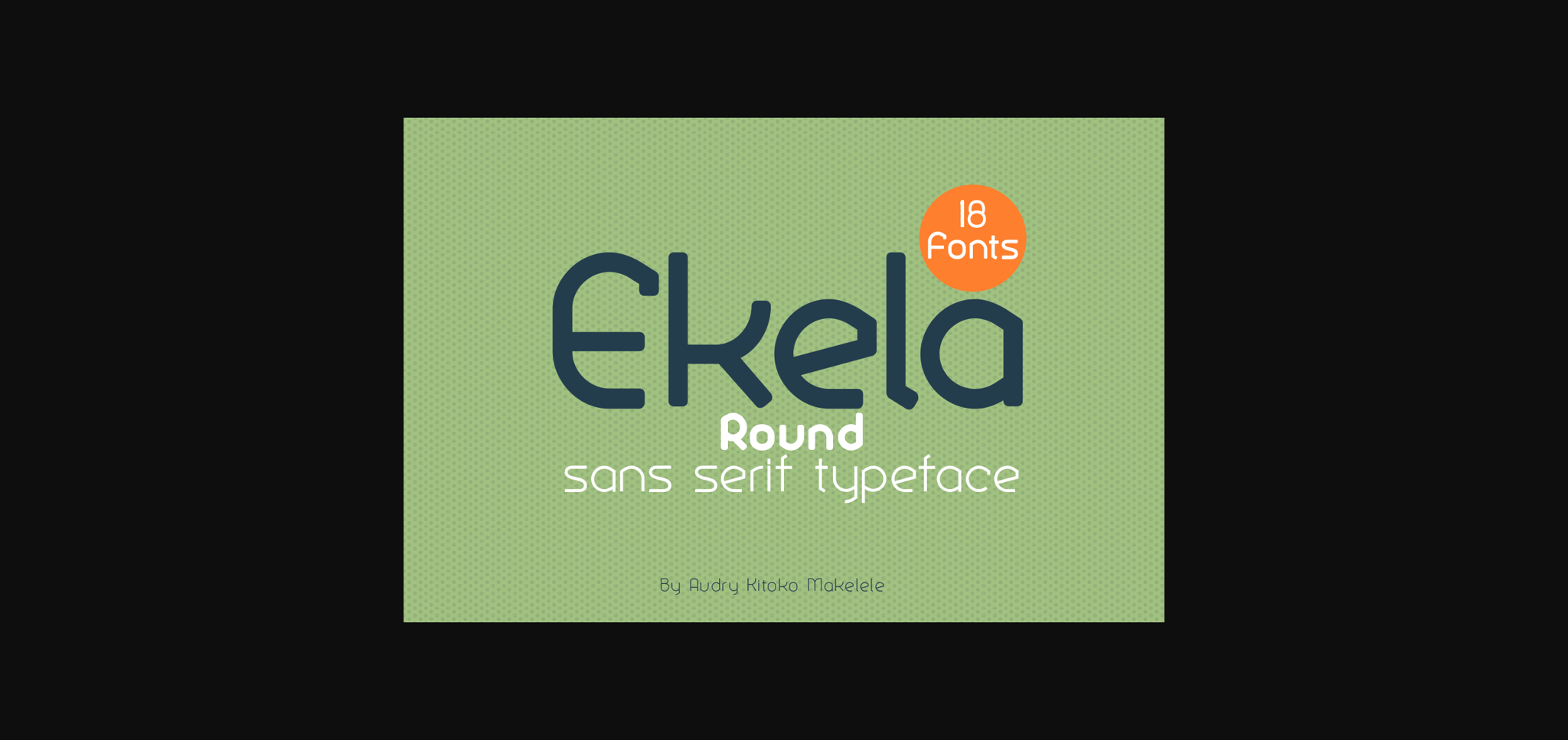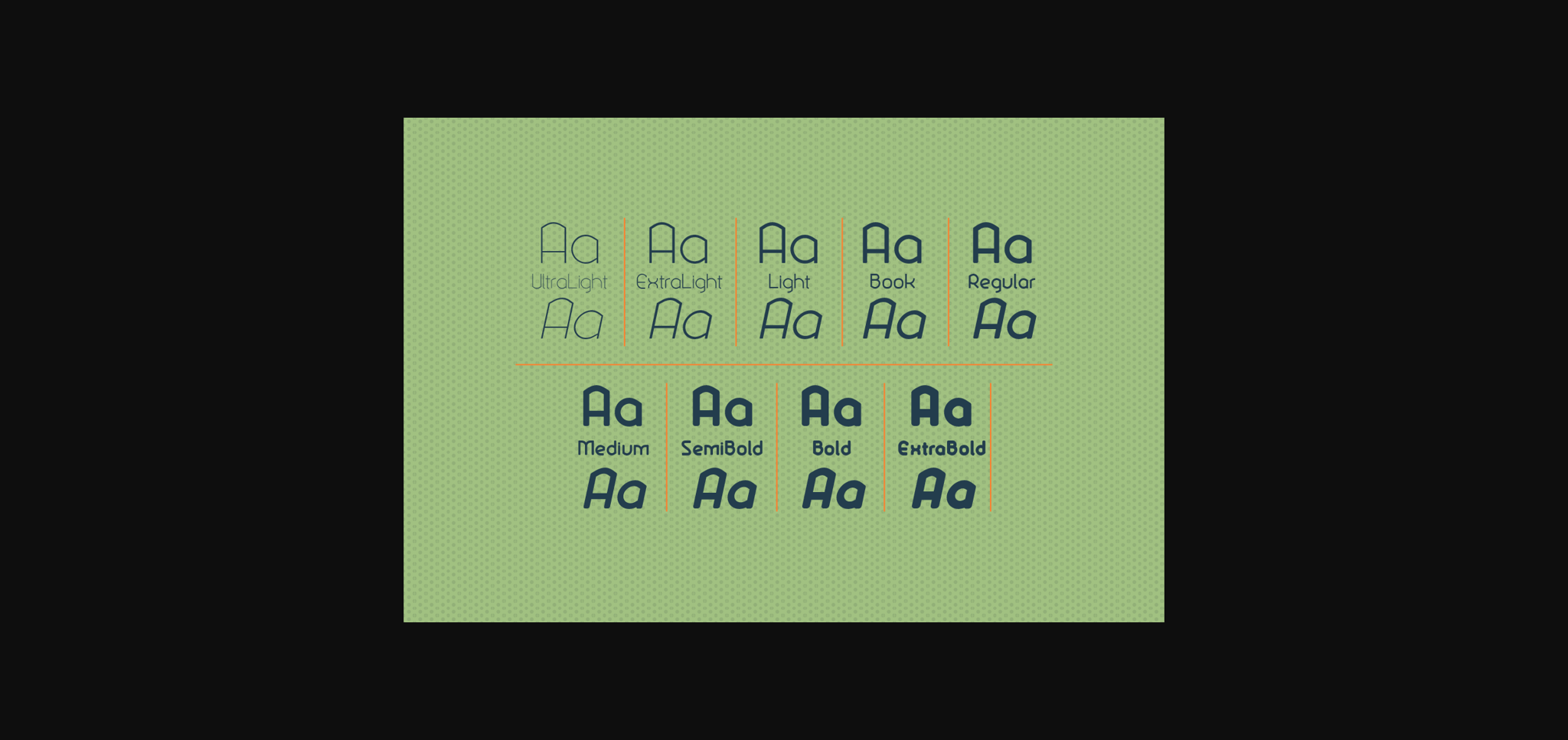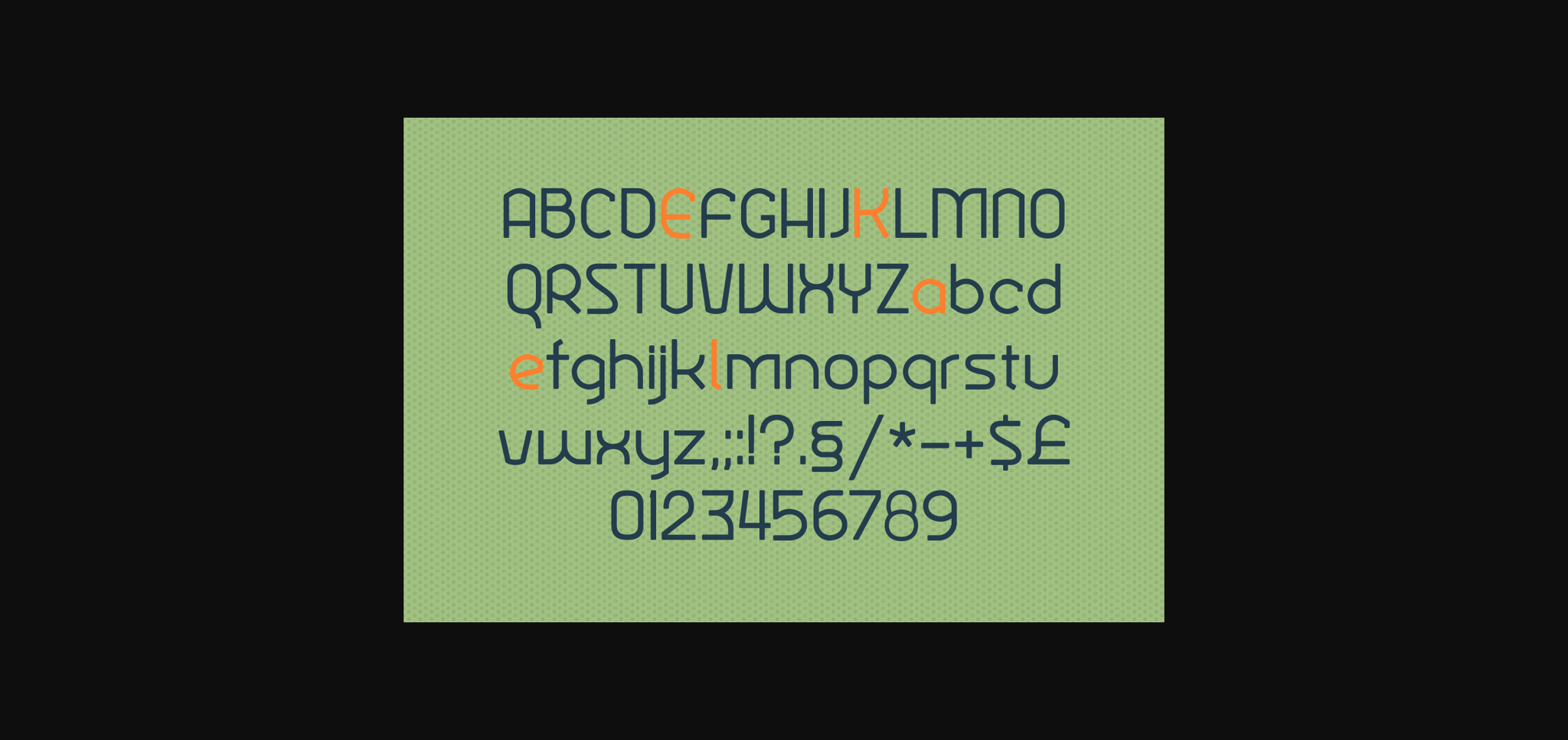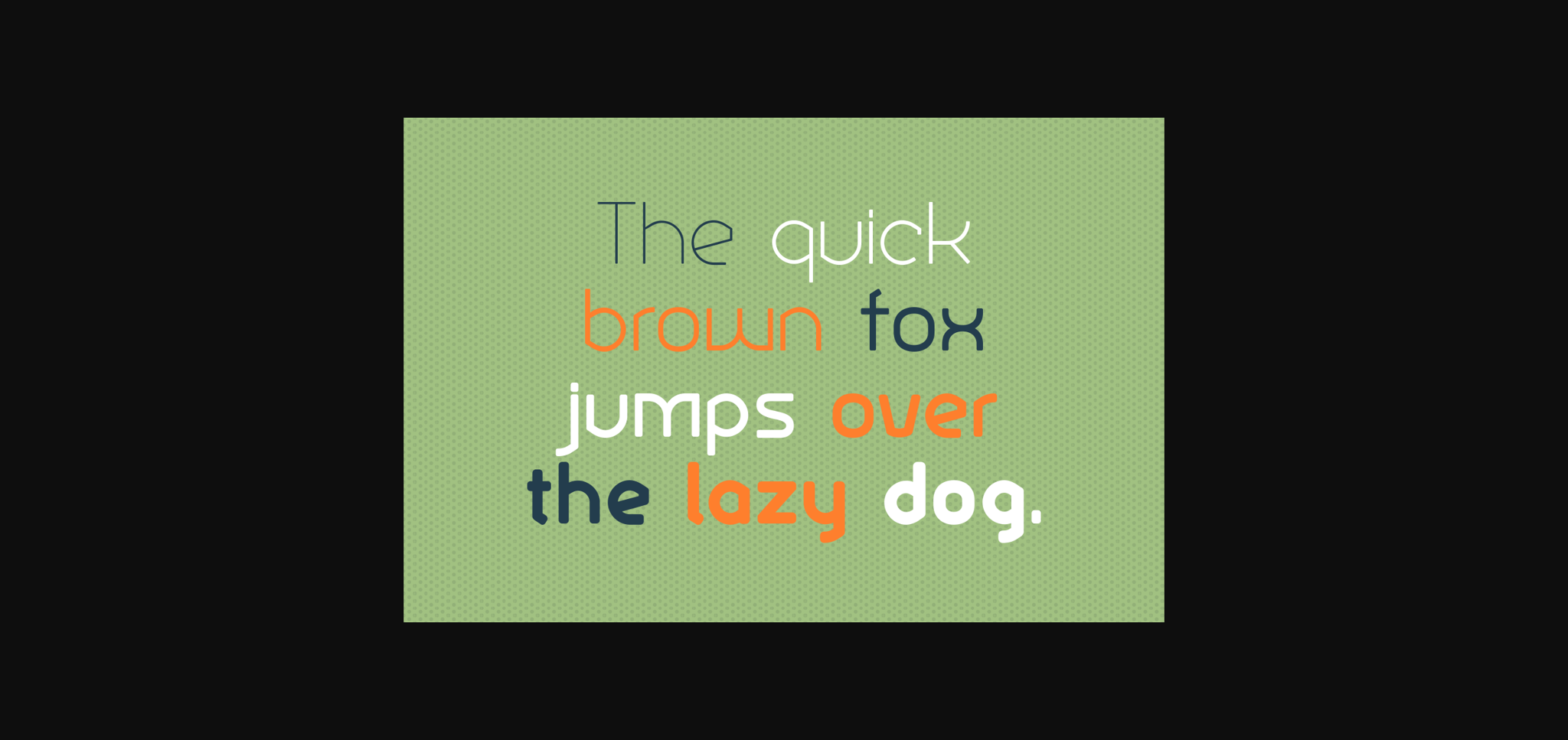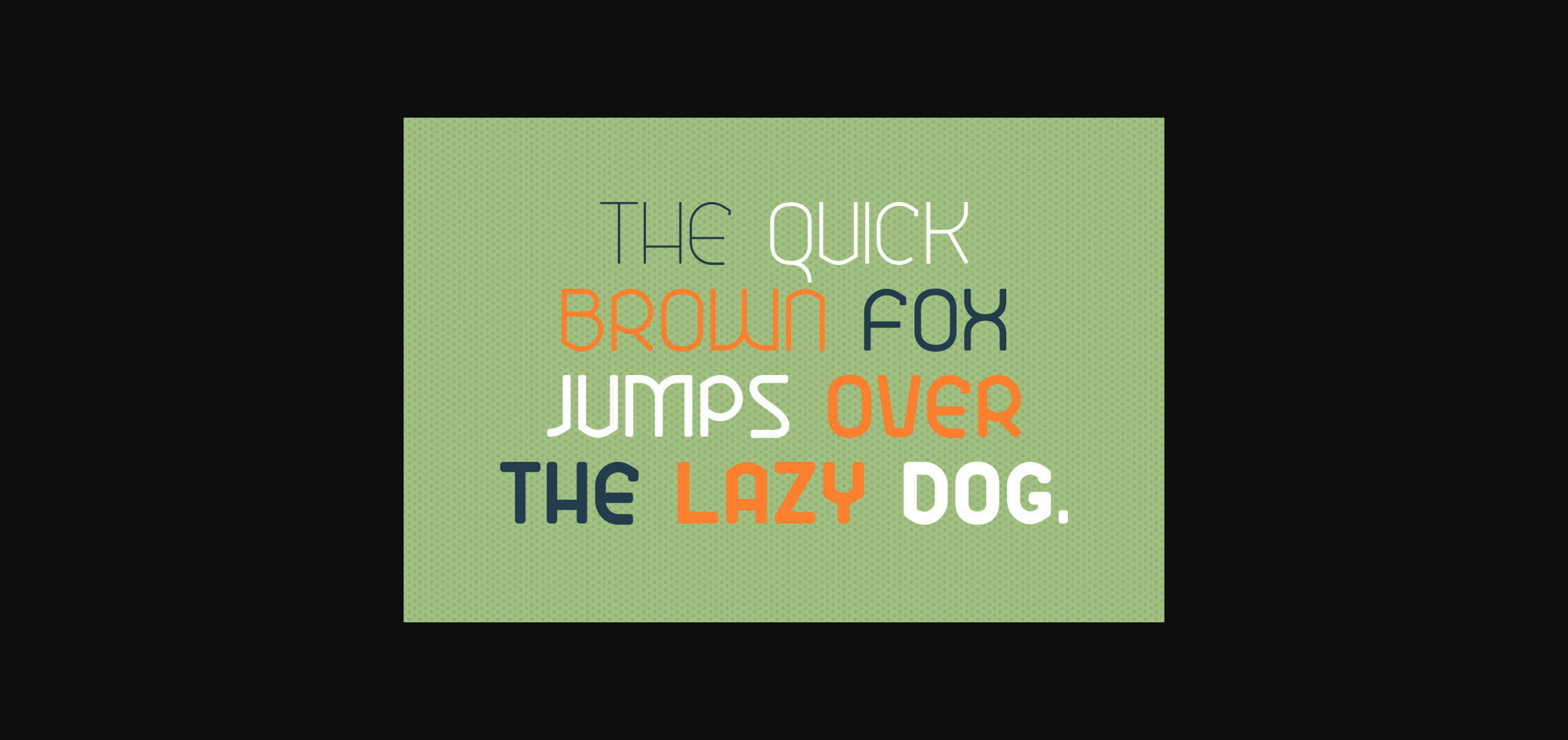
Ekela is a minimal and round lettered sans serif font. It can easily be matched to an incredibly large set of projects, so add it to your creative ideas and notice how it makes them stand out!